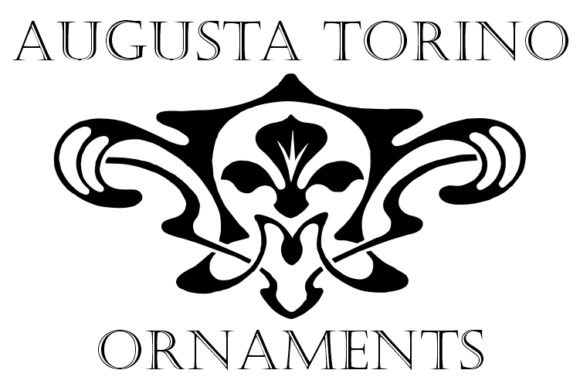
Journey back to the allure of the roaring twenties with Augusta Torino Ornaments, a dingbats font that echoes the glamour and sophistication of art deco. With its intricate patterns and elegant flourishes, this font will transform your designs into captivating masterpieces.
Picture your designs adorned with these timeless ornaments, each stroke whispering tales of opulence and grandeur. Let your imagination run wild as you craft logos, posters, invitations, and more, imbuing them with a touch of vintage charm.
Augusta Torino Ornaments isn't just a font; it's a gateway to a bygone era, a chance to evoke the spirit of the past in your modern creations. Its versatility knows no bounds, seamlessly complementing vintage-inspired designs while adding a touch of intrigue to contemporary projects.
With Augusta Torino Ornaments, you'll become a storyteller, weaving narratives through intricate patterns and graceful lines. Your designs will exude an air of sophistication, leaving a lasting impression on your audience.